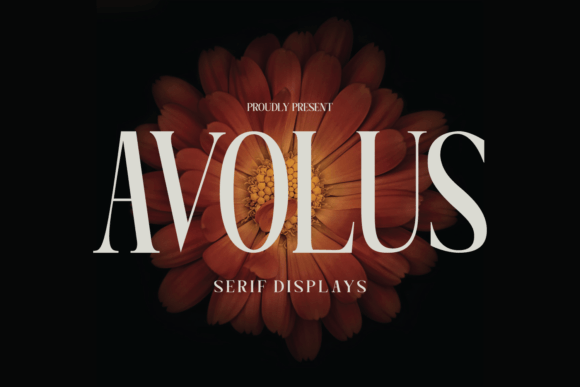
Journey into the world of Avolus Font, a captivating display font that ignites creativity and transforms your designs into captivating masterpieces. Dive into a universe of bold strokes, delicate curves, and a symphony of angles, meticulously crafted to capture the essence of comic books and graphic novels.
Avolus Font is not just a font; it's a gateway to a world of boundless imagination. Its unique style captivates readers, drawing them into the heart of your stories, transporting them to realms of adventure, heroism, and intrigue. Unleash your inner artist and let Avolus Font elevate your designs to new heights, captivating audiences with its charm and originality.
With Avolus Font, your words become living characters, leaping off the page with energy and personality. Each letter is a stroke of genius, a visual symphony that dances before the eyes, creating an immersive experience that leaves readers spellbound. Whether you're a seasoned graphic artist or just starting your creative journey, Avolus Font is your trusty companion, guiding you towards design excellence.
Immerse yourself in the versatility of Avolus Font, a font that effortlessly adapts to your creative vision. Craft stunning wedding invitations that exude elegance and romance, design eye-catching social media posts that demand attention, or create beautiful stationary art that reflects your unique style. Avolus Font is your creative chameleon, blending seamlessly into any project, adding a touch of magic to every endeavor.
Avolus Font is more than just a collection of letters; it's an invitation to embark on a creative odyssey. Let your imagination soar as you explore the endless possibilities that await you. Avolus Font is your trusted guide, your faithful companion, as you navigate the ever-changing landscape of design. Embrace the power of Avolus Font and unleash the full potential of your creative genius.